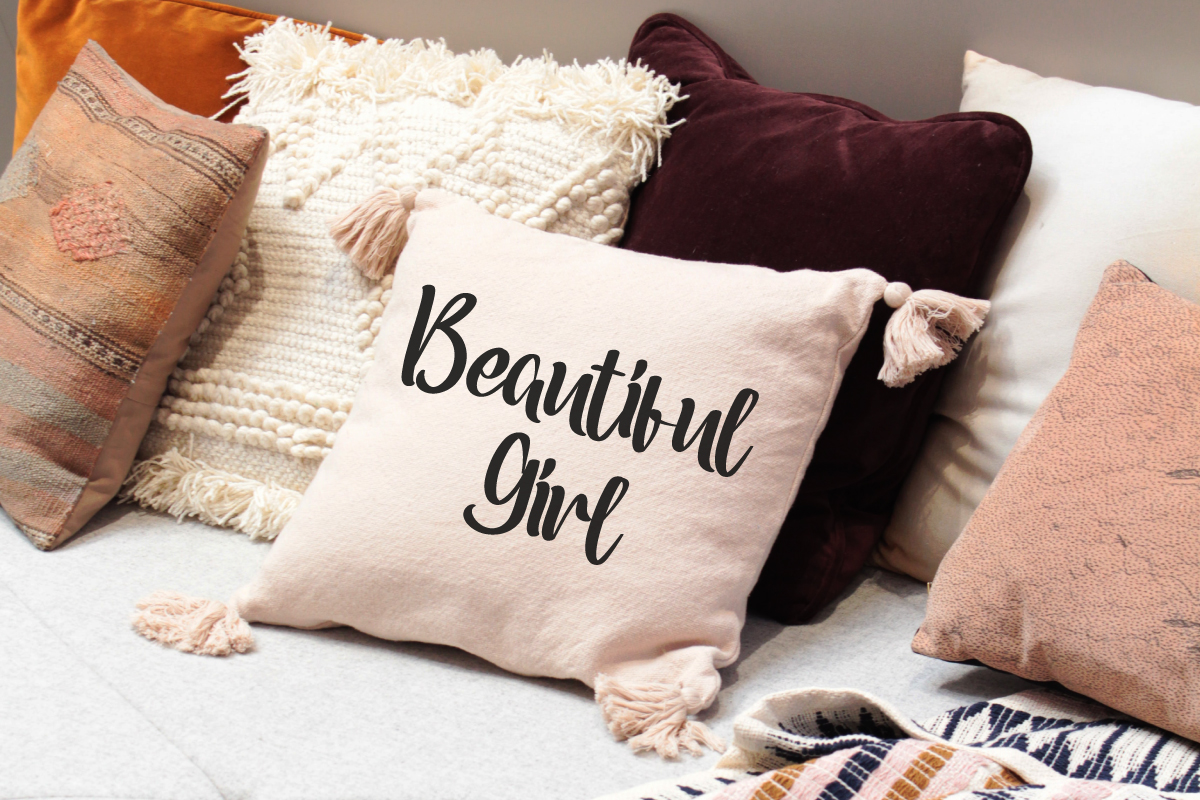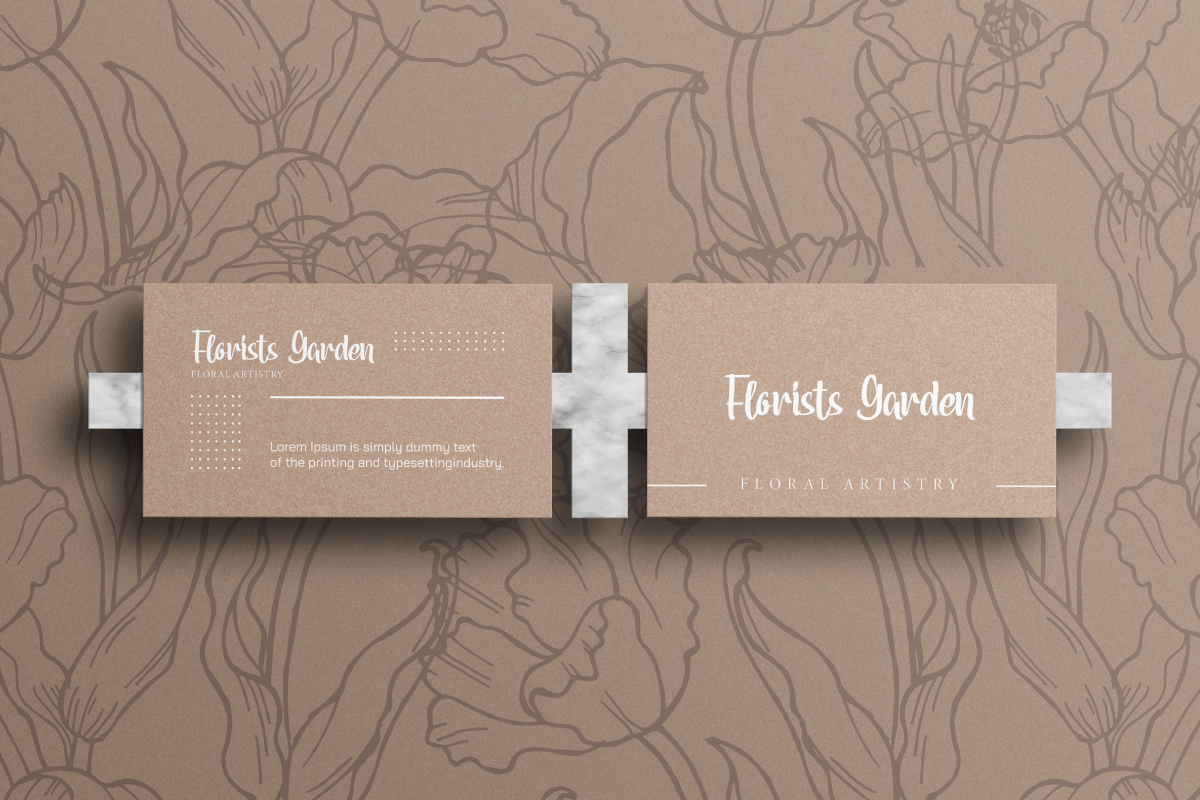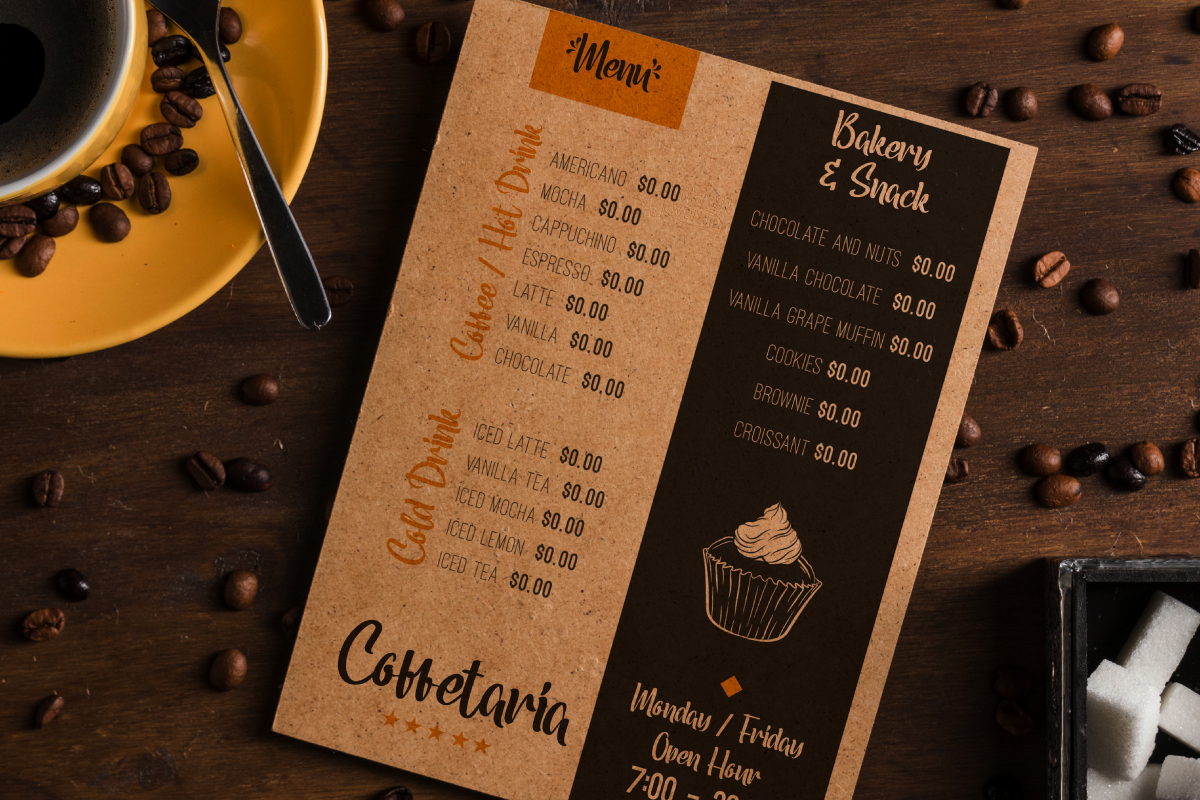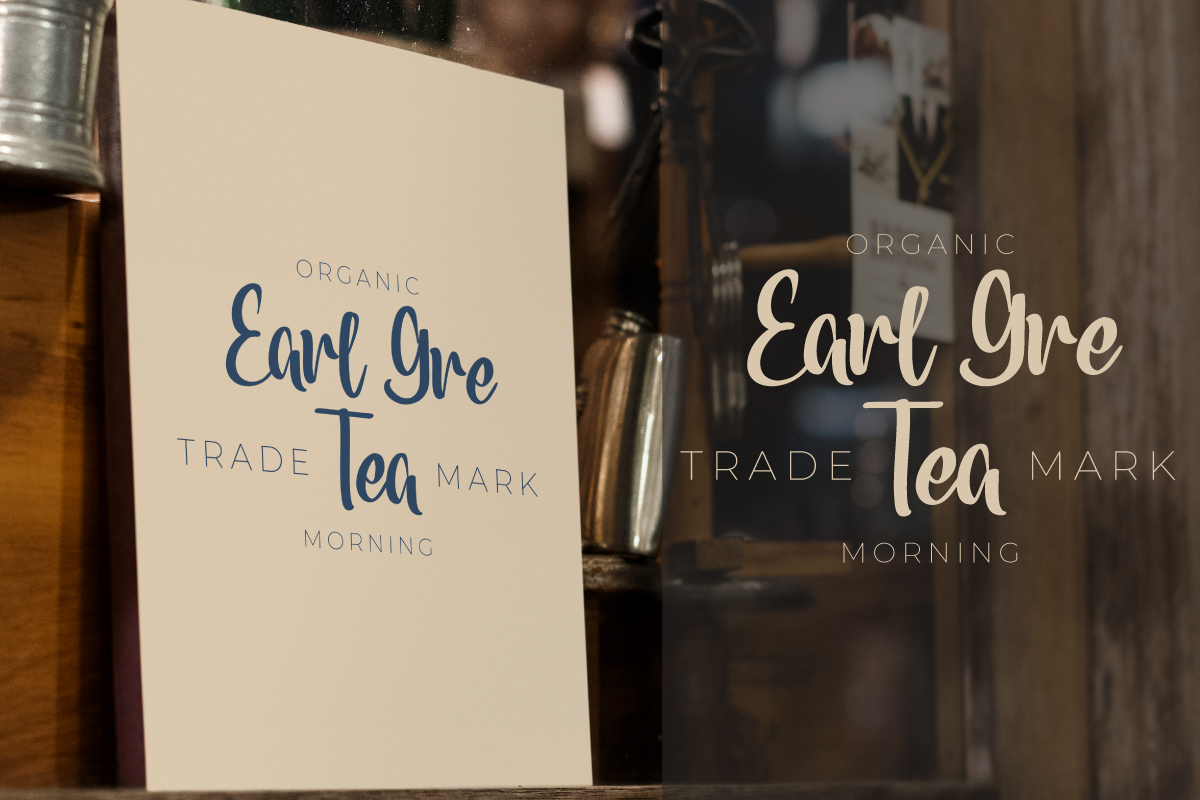
Sugar Bloom Font
Sugar Bloom Script Font
This font will be great for any projects (require extended license) including : branding, logo, stationery, wedding invitation, signage, flyer, video tittle etc. The theme style of the font is unique, natural, beauty, movie, sporty, gamer, wedding brush style. The font will be match for this typeface: houseware, cosmetic, events, artist, musician, café, coffee, promotion, etc